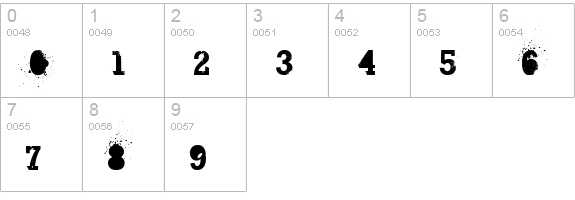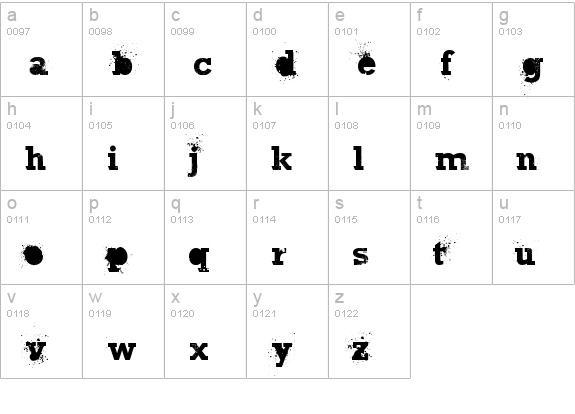
Introducing The Great Thunder font, a captivating typeface that exudes power, energy, and a touch of mystique. With its bold and dynamic letterforms, this font is perfect for adding impact and excitement to any design project. The Great Thunder font is a true testament to the beauty and versatility of typography. Its strong, angular strokes command attention and convey a sense of authority, making it ideal for headlines, logos, posters, and more. Each character is meticulously crafted, ensuring clarity and legibility even at smaller sizes. But what sets The Great Thunder font apart from the rest is not just its striking aesthetic, but also its accessibility. We believe that great design should be available to all, which is why The Great Thunder font is offered completely free of charge. You can easily download this remarkable font at FontsMarket.com, where a vast array of free fonts awaits your creative exploration. Whether you're a professional designer looking to elevate your projects or a casual enthusiast in search of a font that makes a statement, The Great Thunder font is here to empower your vision. Its seamless integration with various design software ensures a smooth and hassle-free experience, allowing you to unleash your creativity with ease. So, why wait? Download The Great Thunder font today and embark on a typographic journey that will leave a lasting impression. With its captivating presence and the added bonus of being freely available, this font is an essential tool for any design arsenal. Embrace the power of The Great Thunder font and witness your designs come to life like never before.